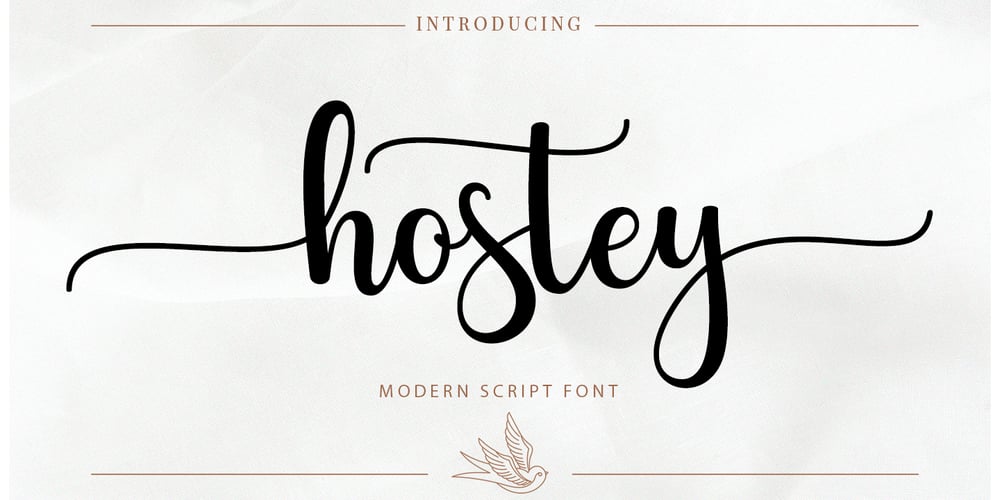
Hostey Script Font Family was designed by Rizki Andika and published by Letterfreshstudio. Hostey Script contains 1 styles and family package options. Hostey is a stylish and very modern script font. It looks amazing on wedding invitations, thank you cards, quotes, greeting cards, logos, business cards and any other design that calls for a handwritten touch.Features : Ligatures Stylistic sets Basic Latin A-Z and a-z Numbers International Symbols included Punctuation Ligature This font is PUA coded which means you can access all the glyphs and replace them easily!Thank You.